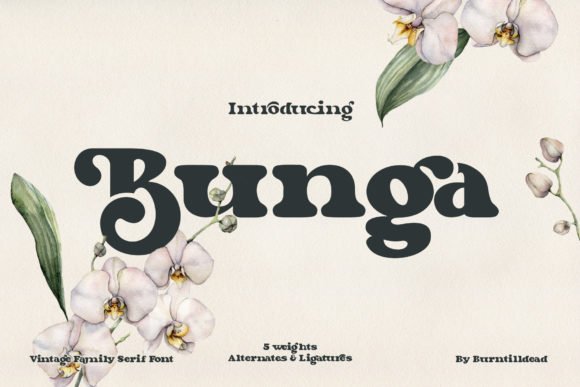
Adding a Touch of Whimsy to Your Designs Have you ever stared at a blank page, waiting for that elusive spark of creativity to strike? The blank canvas can be intimidating, but it’s also an opportunity to let your imagination run wild. For many designers, that spark comes from discovering the perfect font to bring…